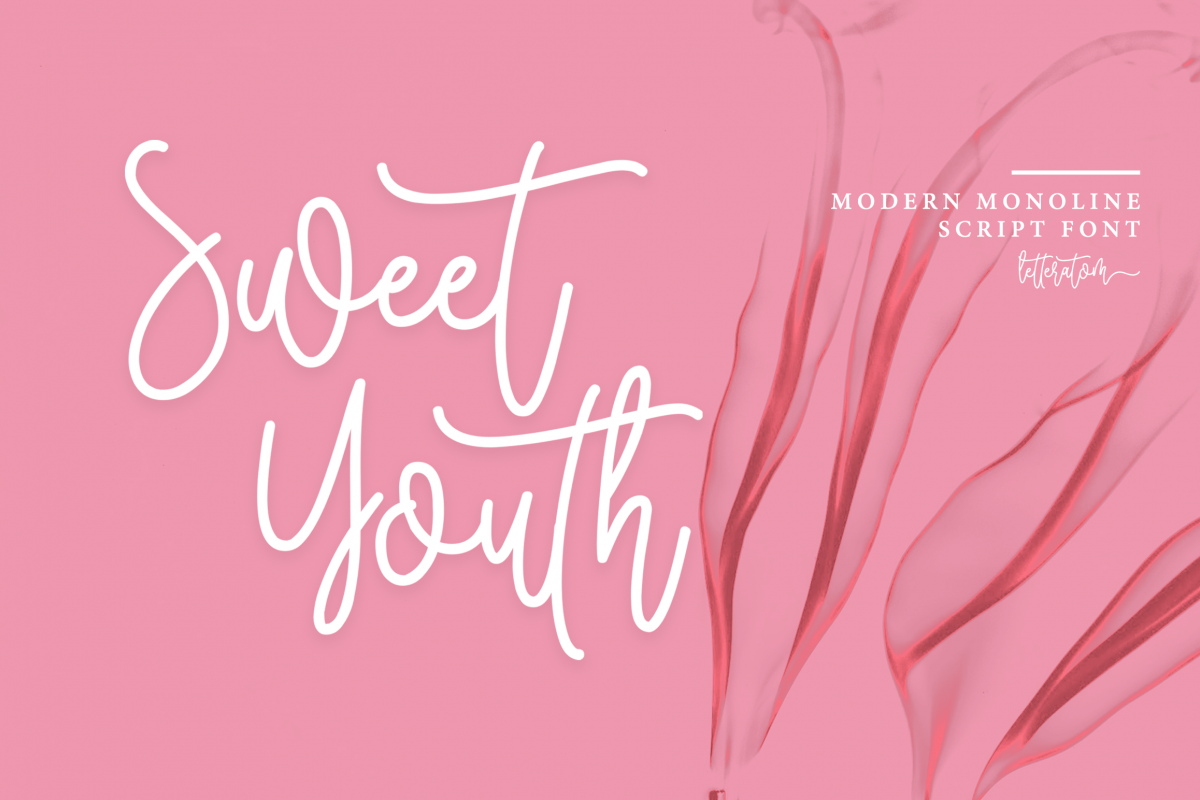
Sweet Youth is a modern calligraphy typeface. It includes amazing swashes in 4 styles, which gives you the opportunity to create multiple unique designs with just this one download. It is suitable for logos, web, stationary kits, banners, greeting cards, quotes and every other design which needs an elegant touch.